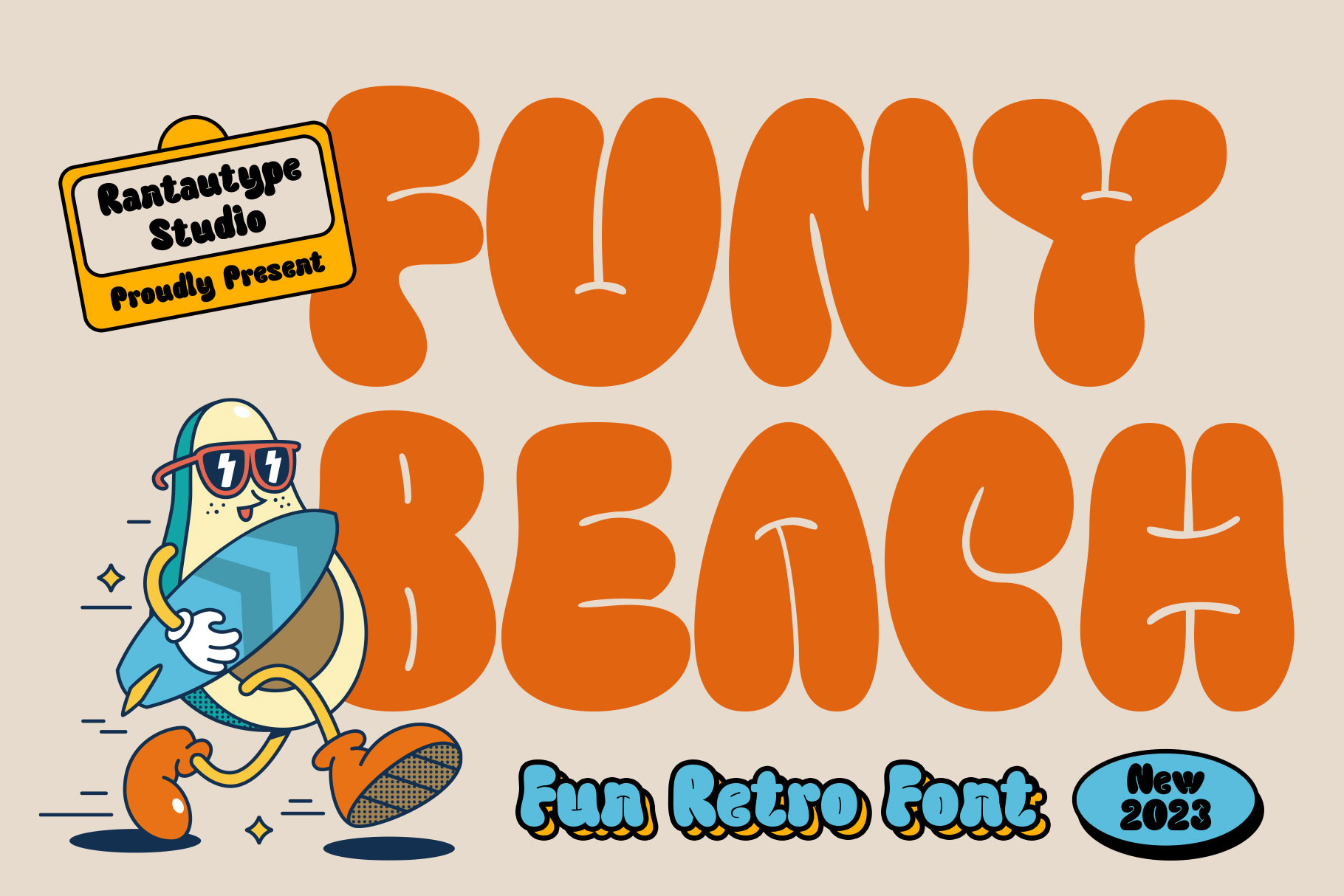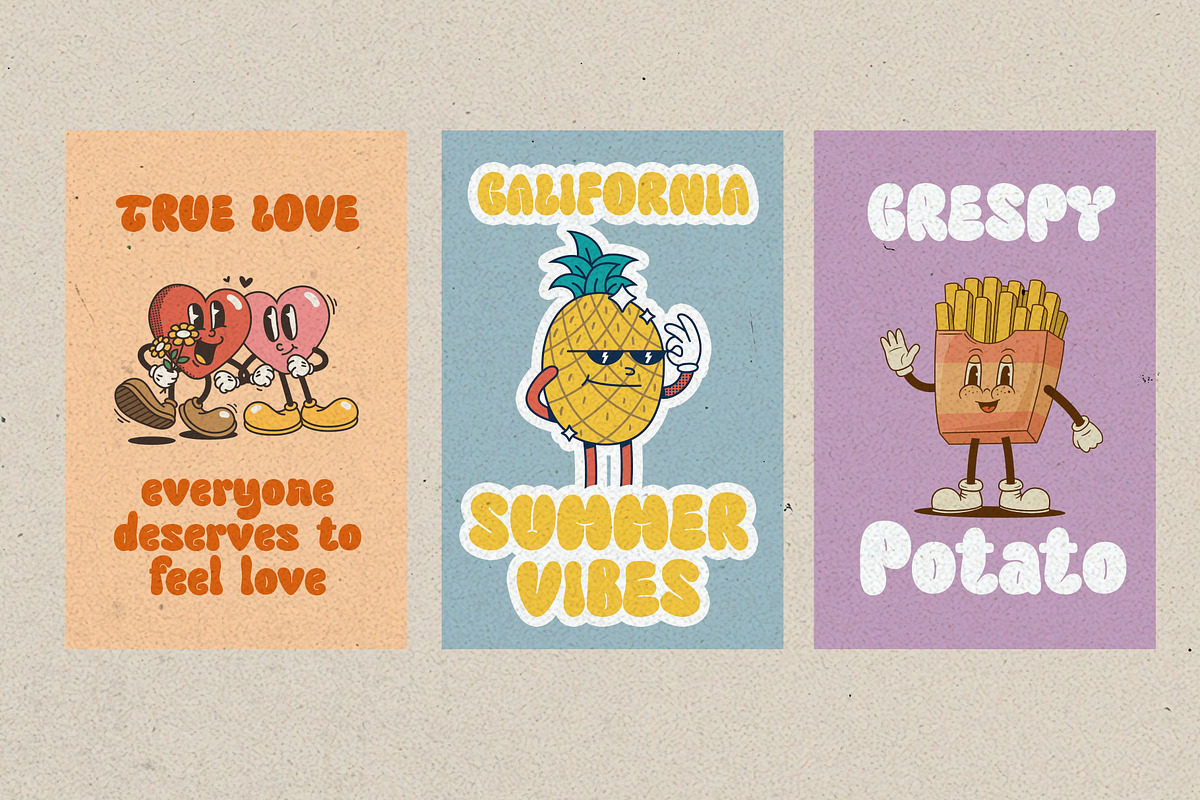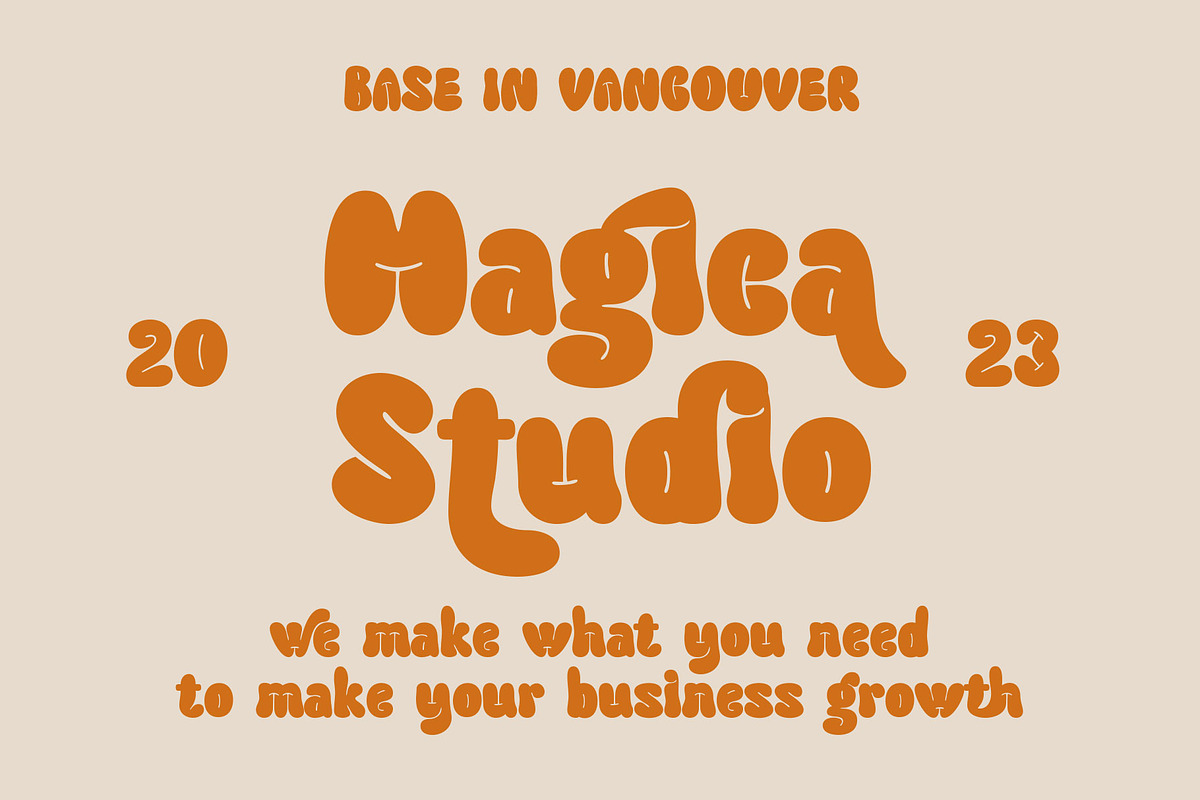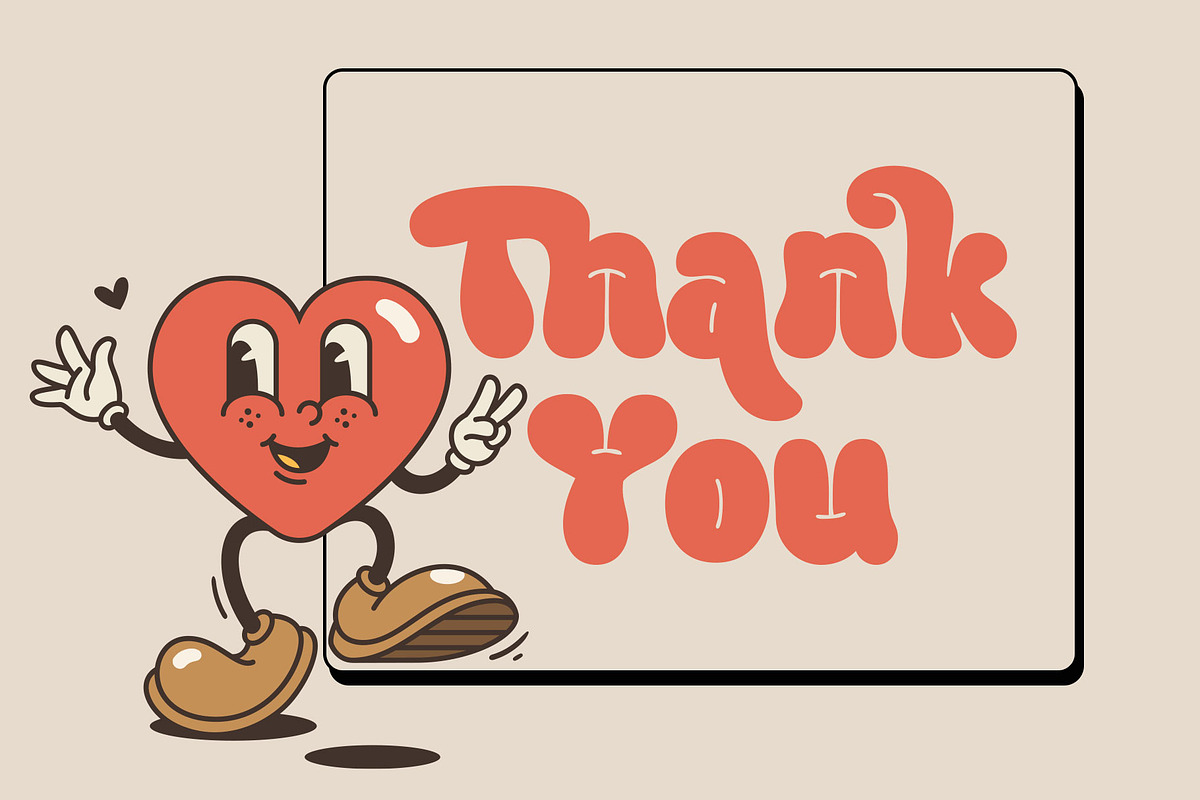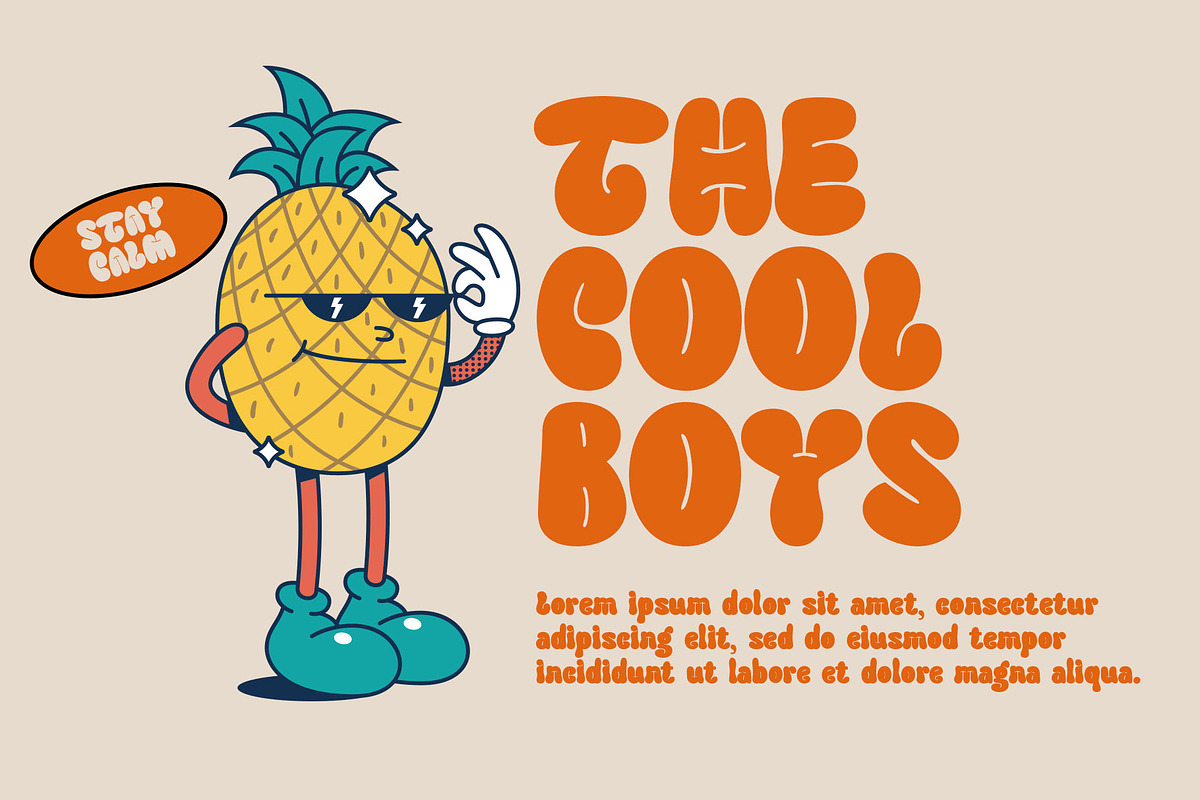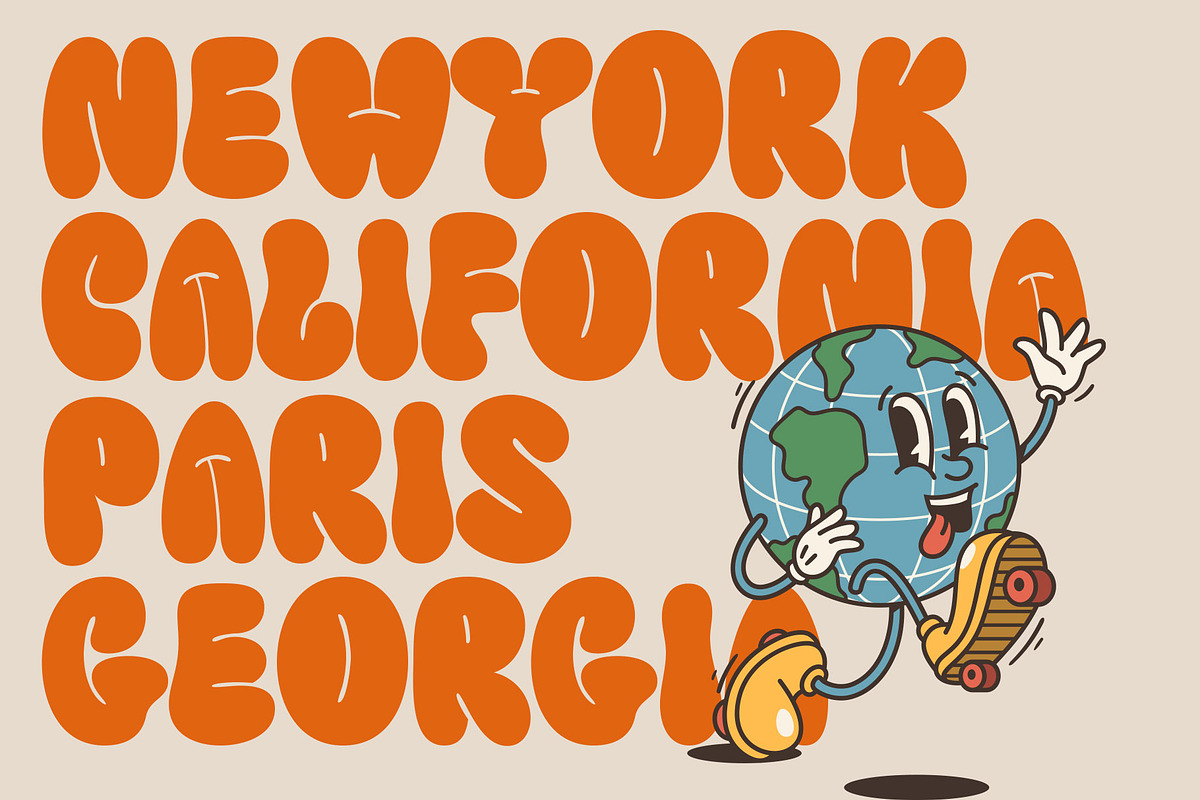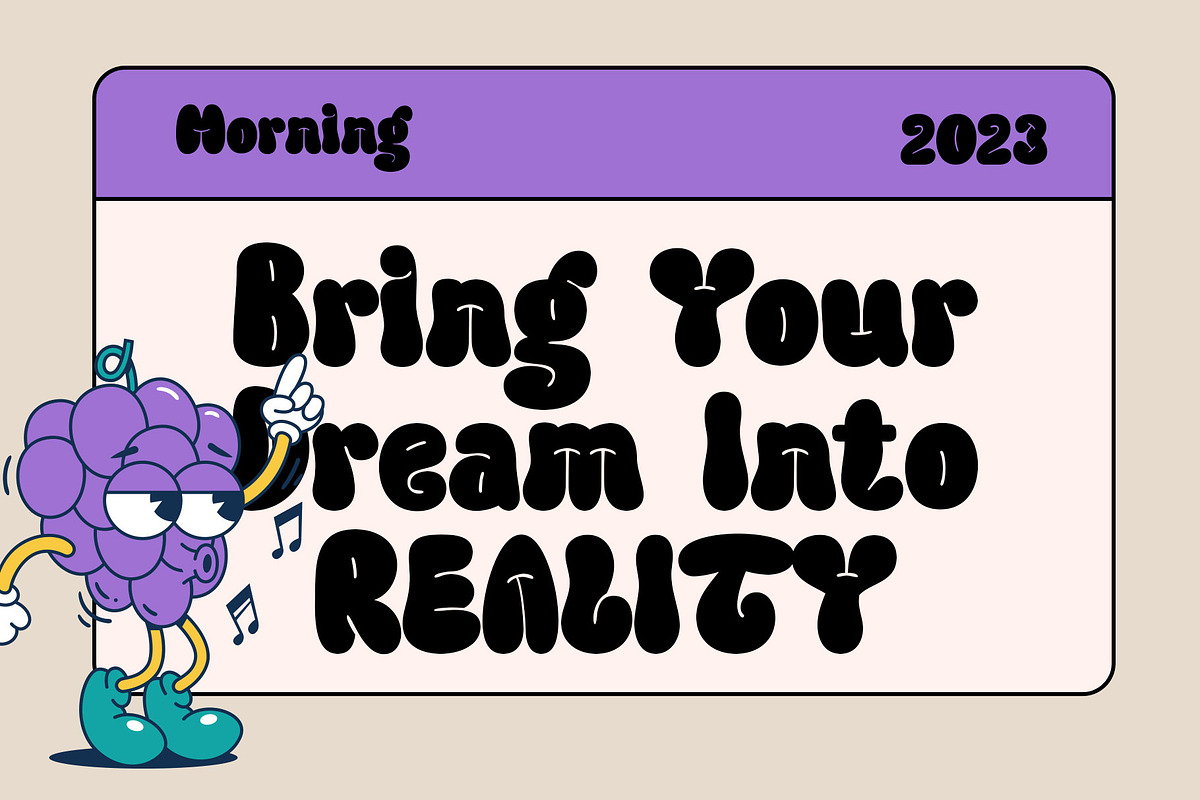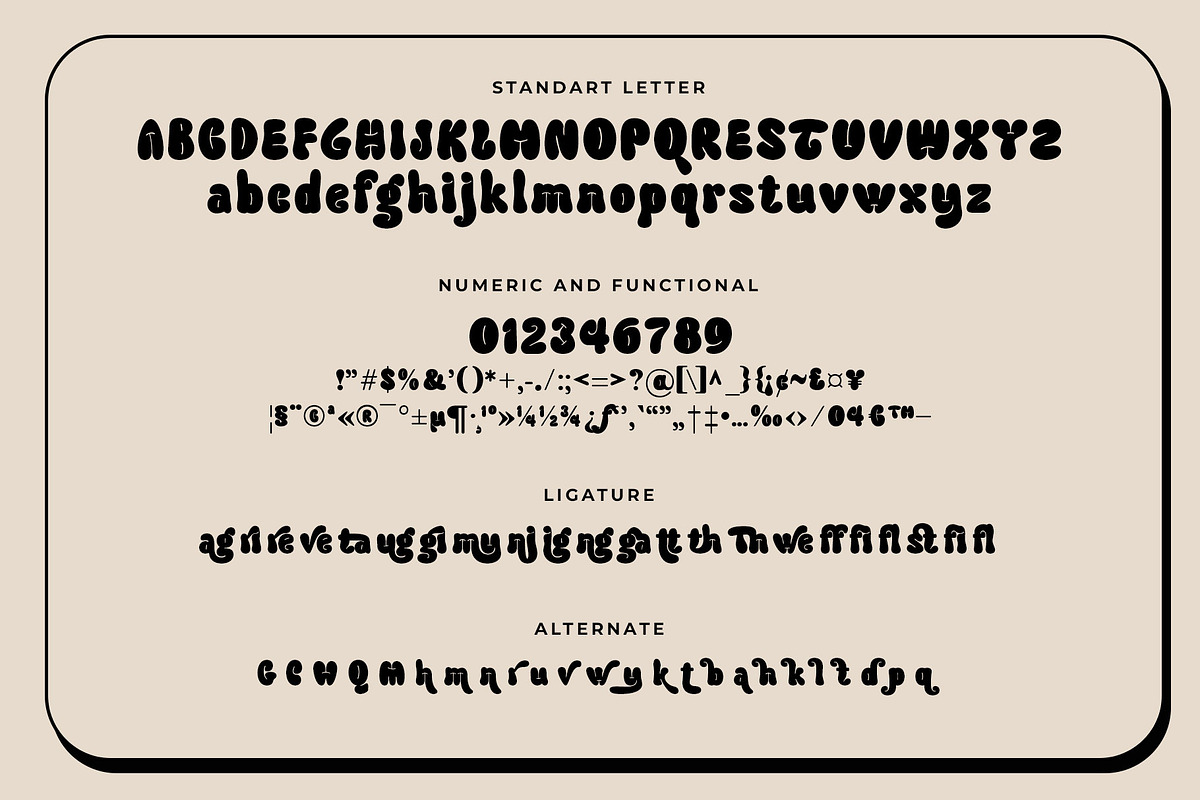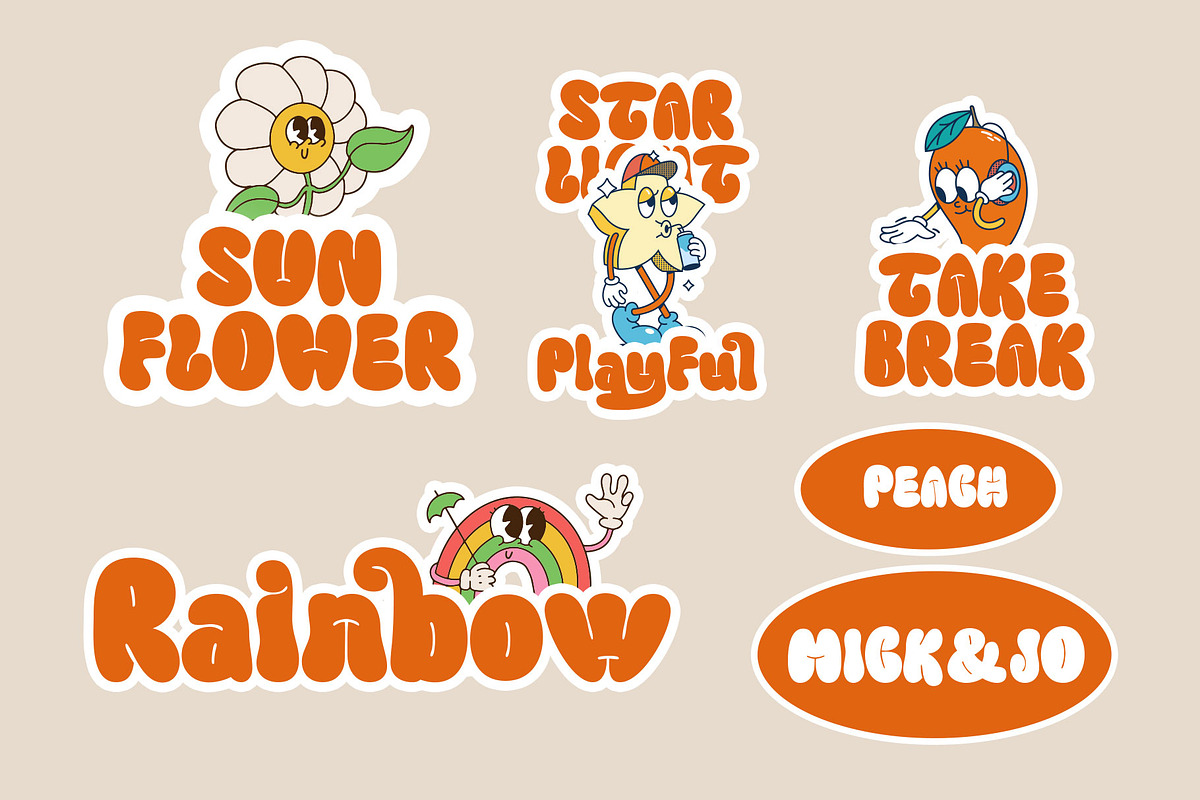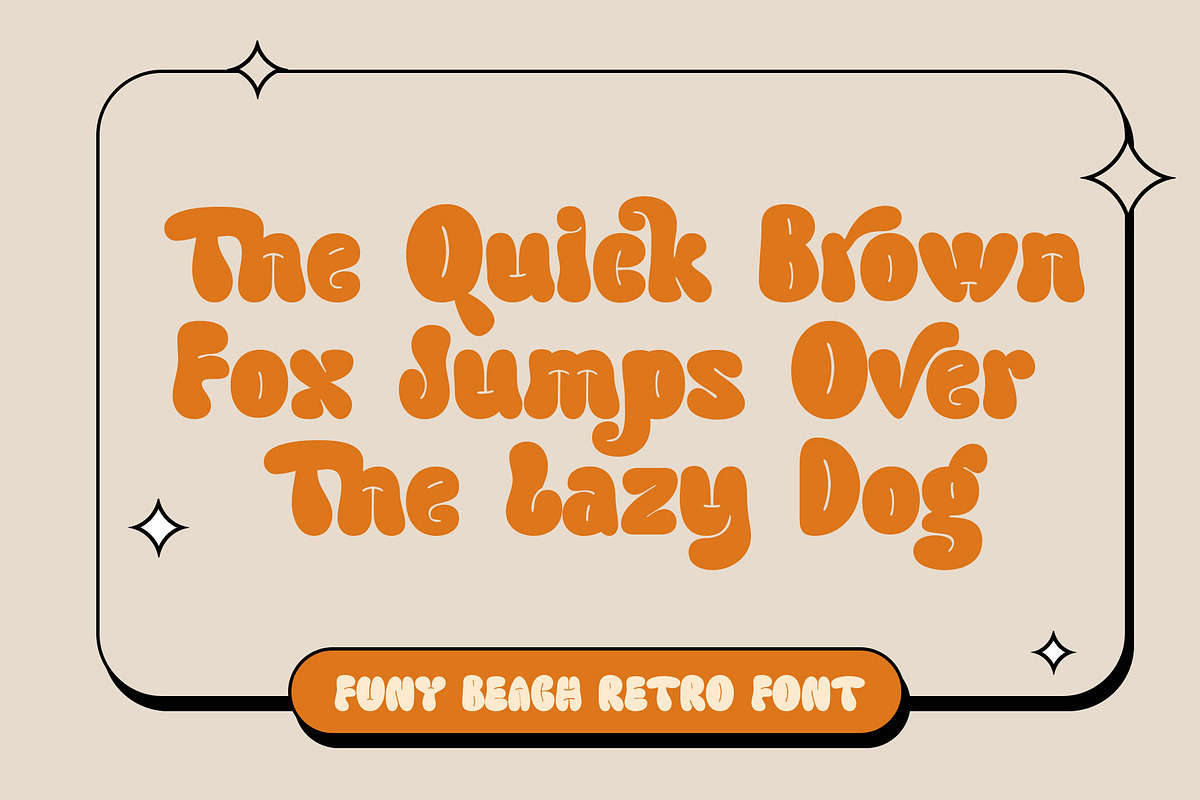
Funy Beach Retro Serif Font
Funy Beach is a retro font that soft bold curve make it look Unique, fun, modern, and versatile serif Font. Come with more alternate and ligature you can mix to create a more stunning display. Funy Beach come with multilingual support.
Funy Beach separate in reguler and italic, is a beautiful choice for any creative endeavor, creating fun, modern, chic, lifestyle design such as logos, title, cover, branding, display and magazine, and more. Now you have can choice funy beach to make your branding.
- Alternate and Ligature